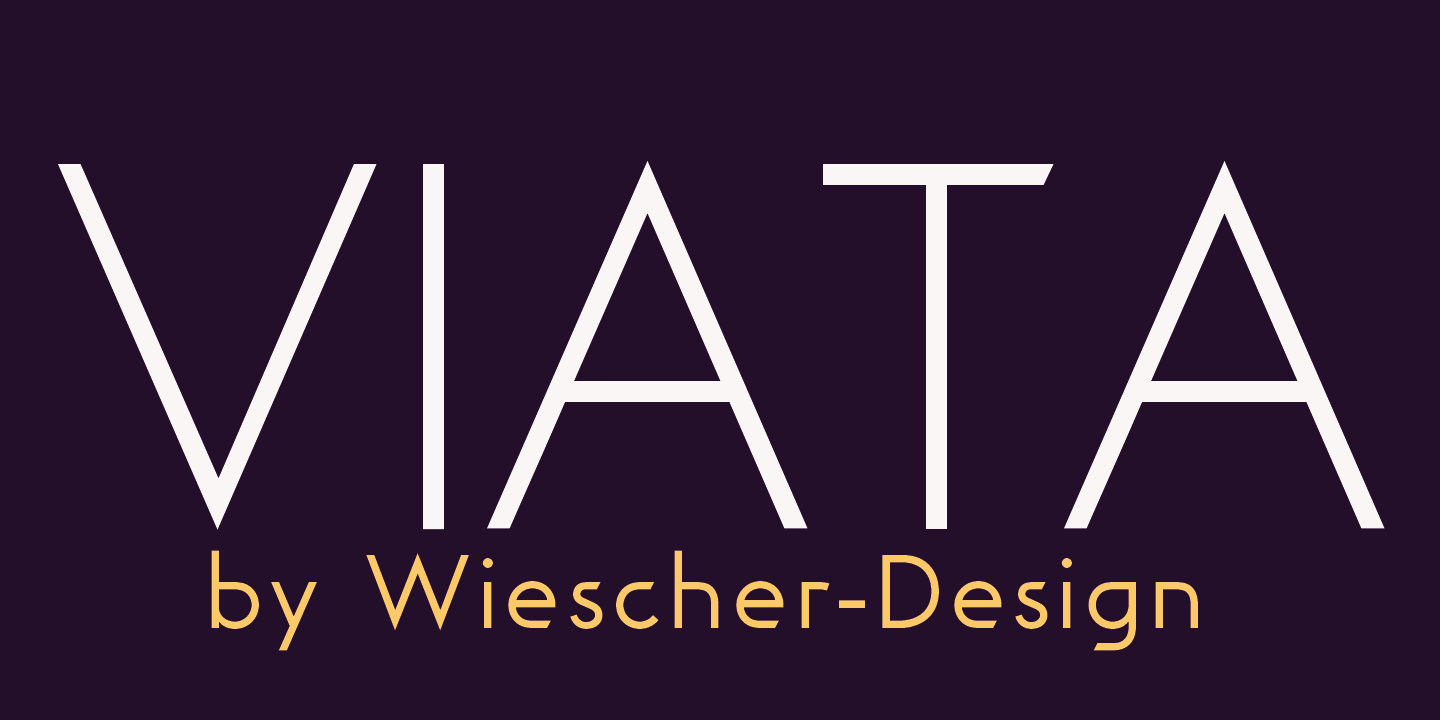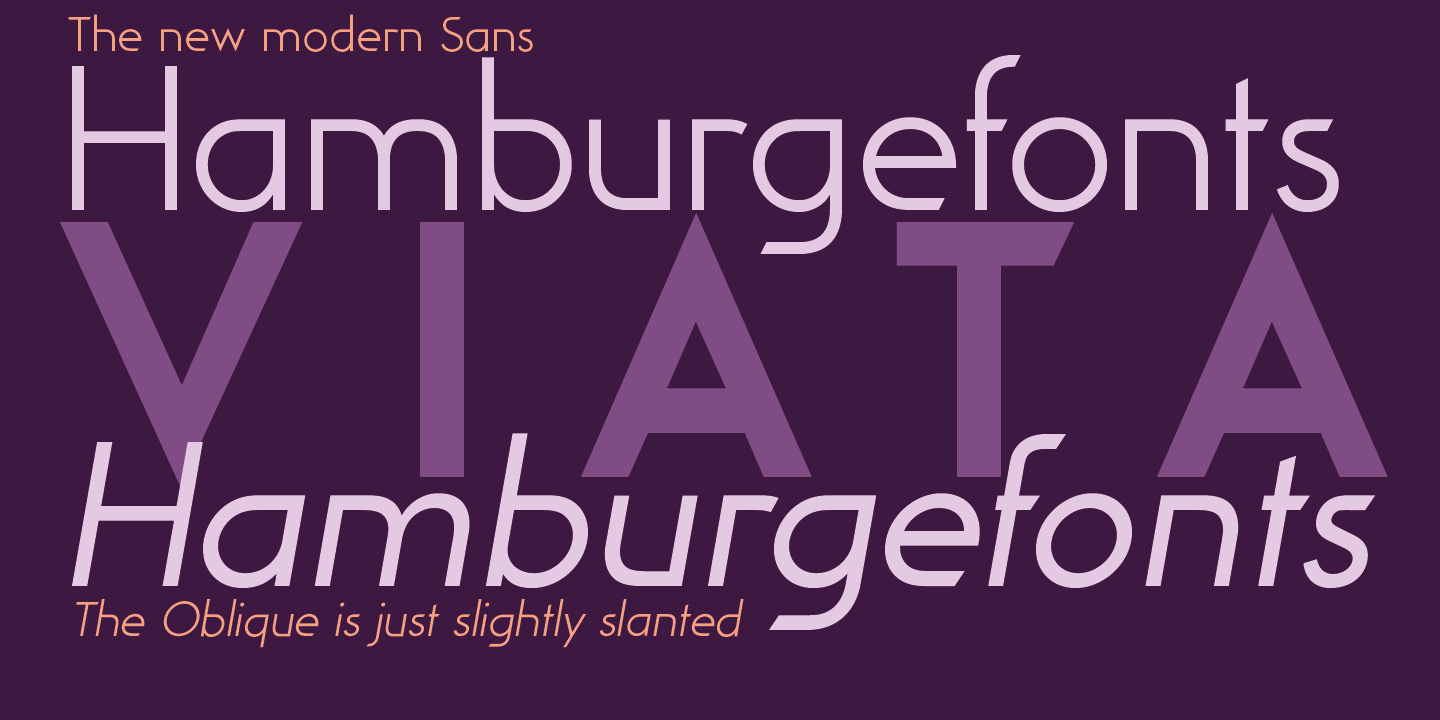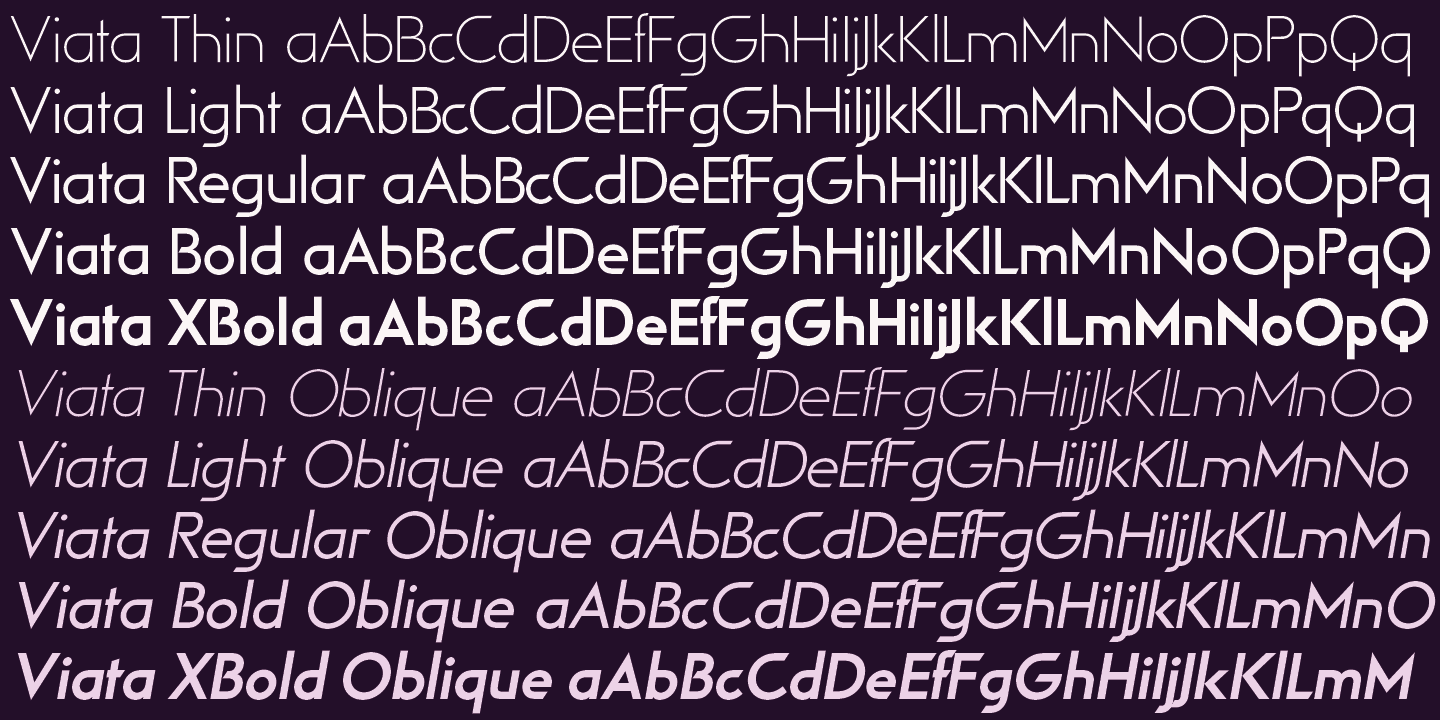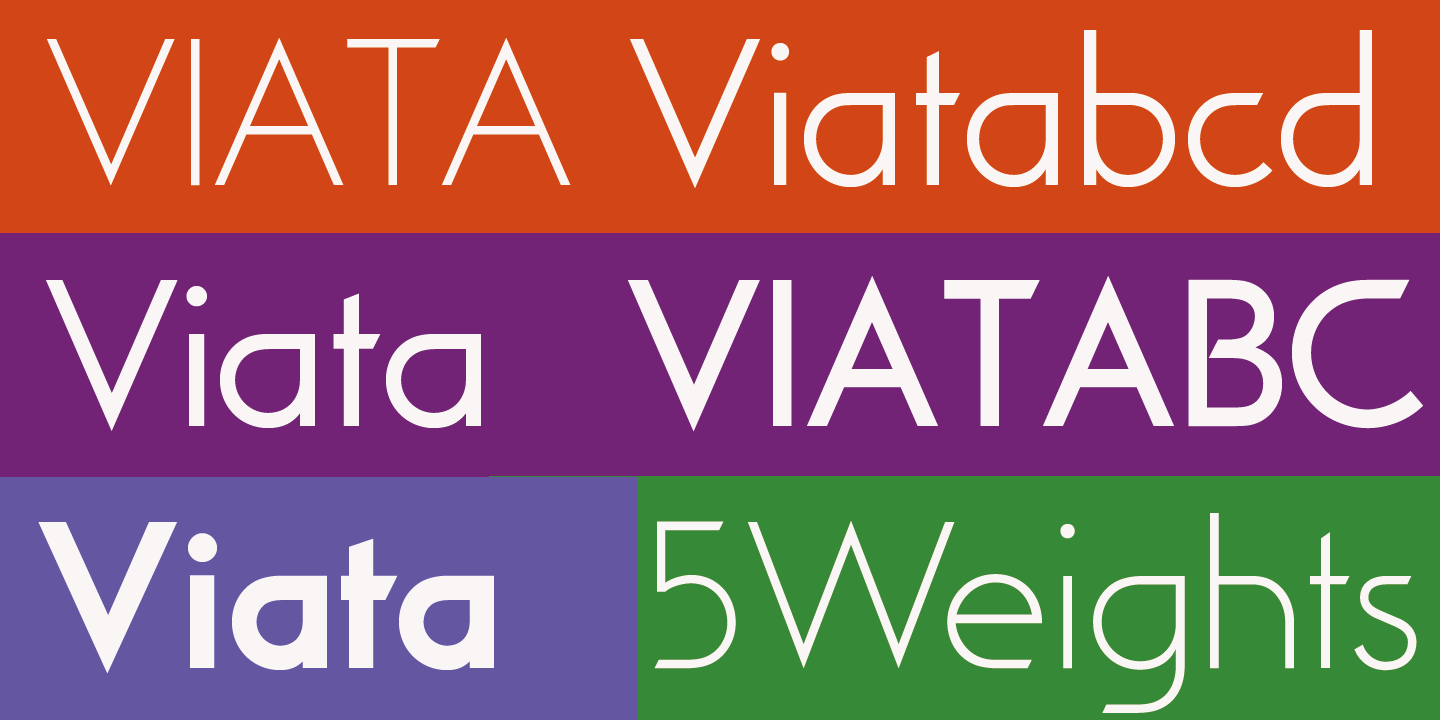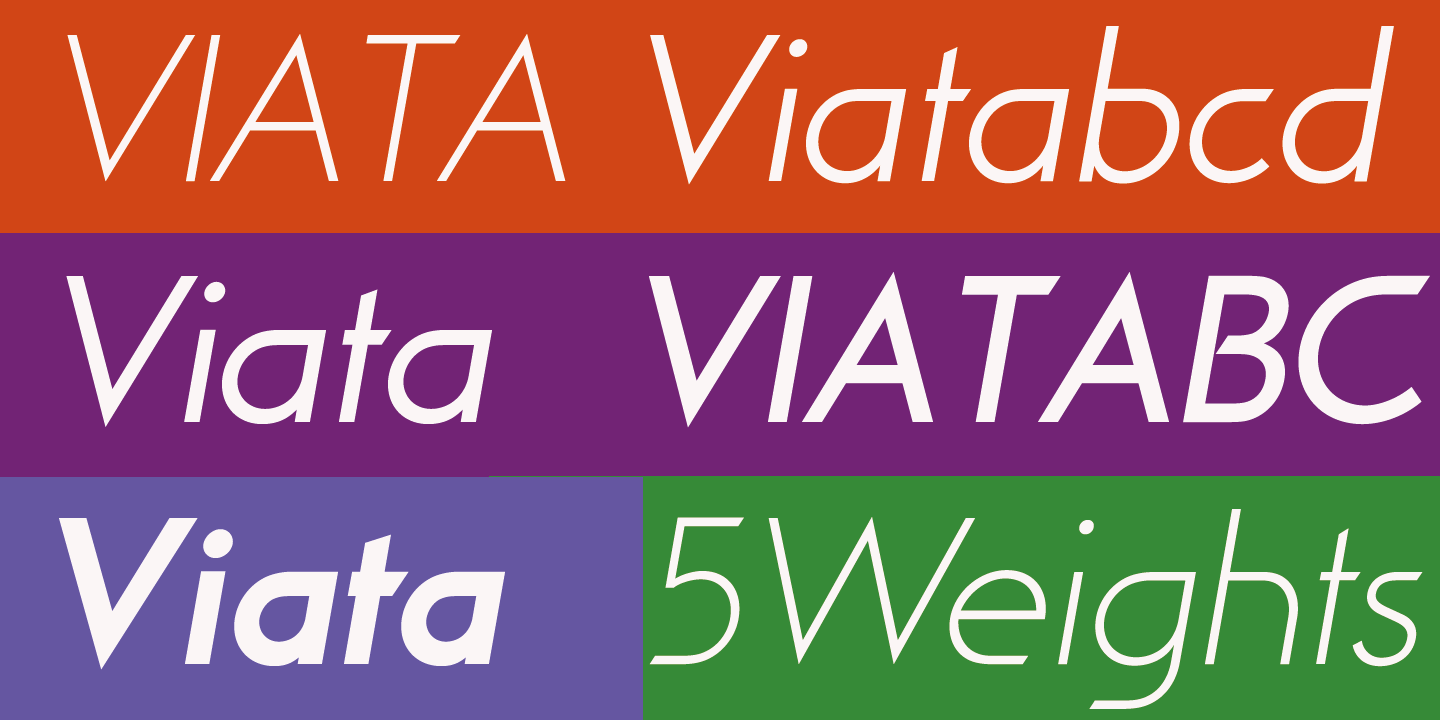
Viata
VIATA is my new experimental Sans again based on the modernistic, constructivist letterforms of the Bauhaus era. The names Herbert Bayer and Paul Renner come to mind as design beacons of that time.
VIATA has flat tops and round bottoms, which give the glyphs a very distinct form, slanted endings on some horizontal strokes give the font more dynamic. The font also has an additional set of medieval ciphers. VIATA adds a new kick to the old forms.